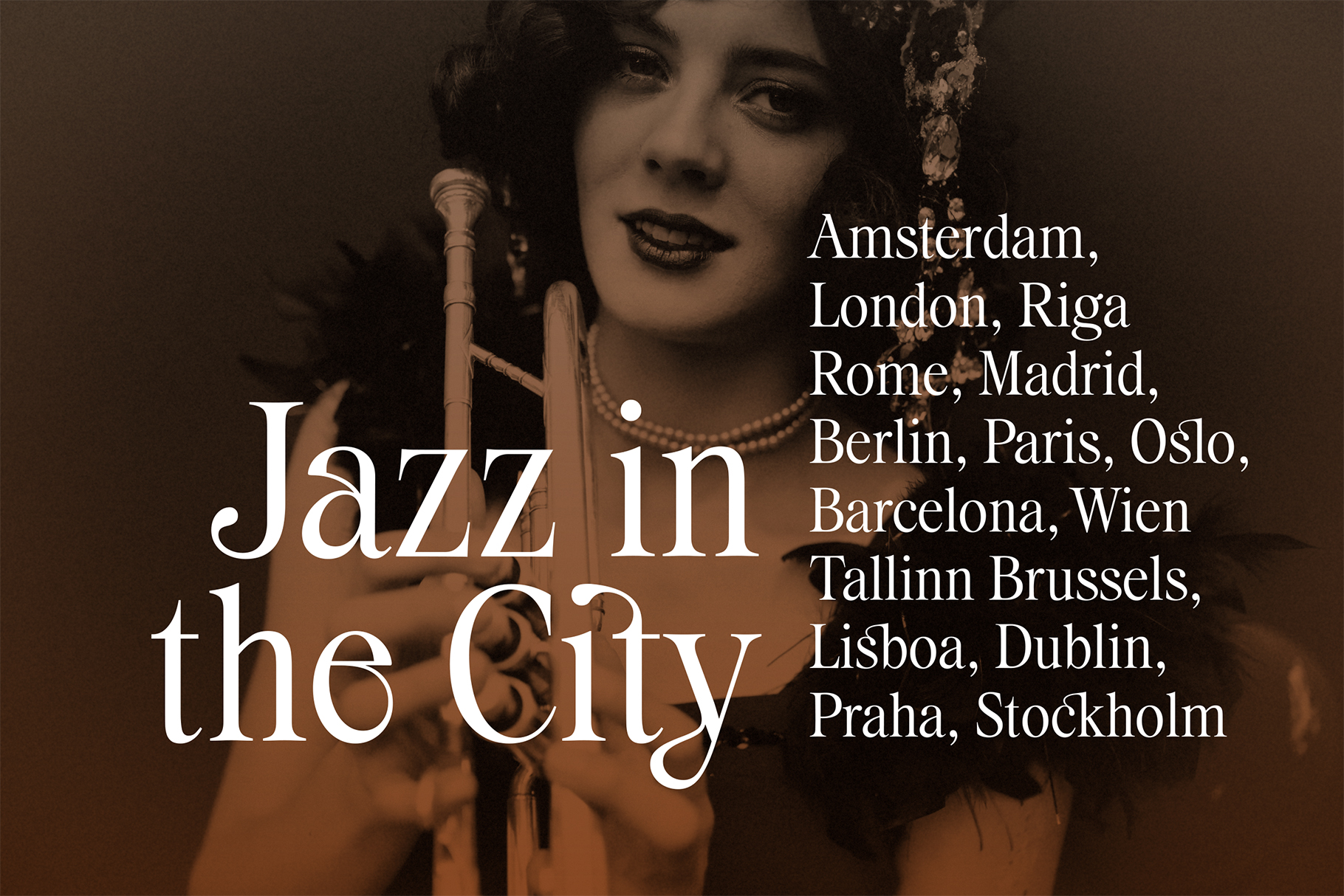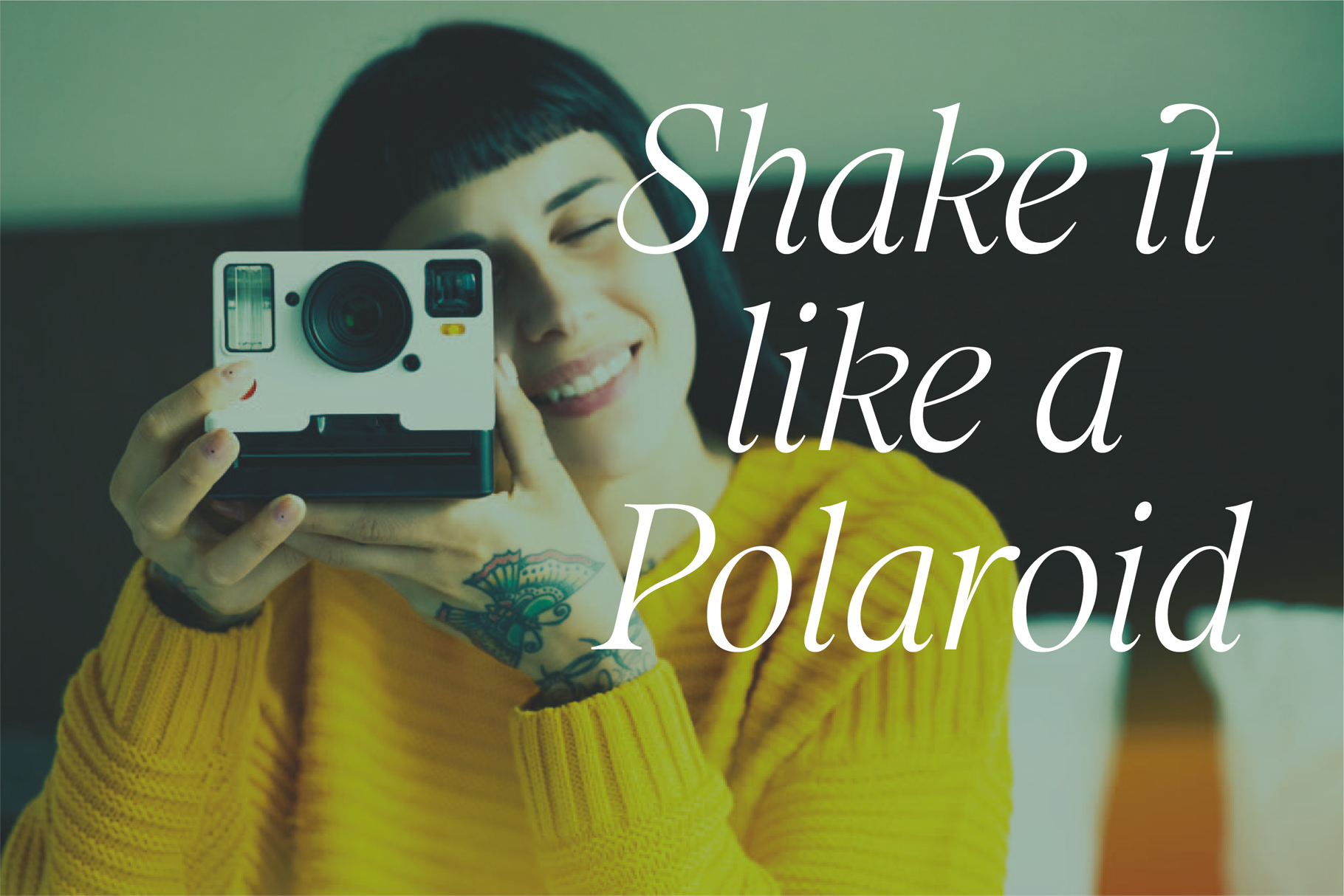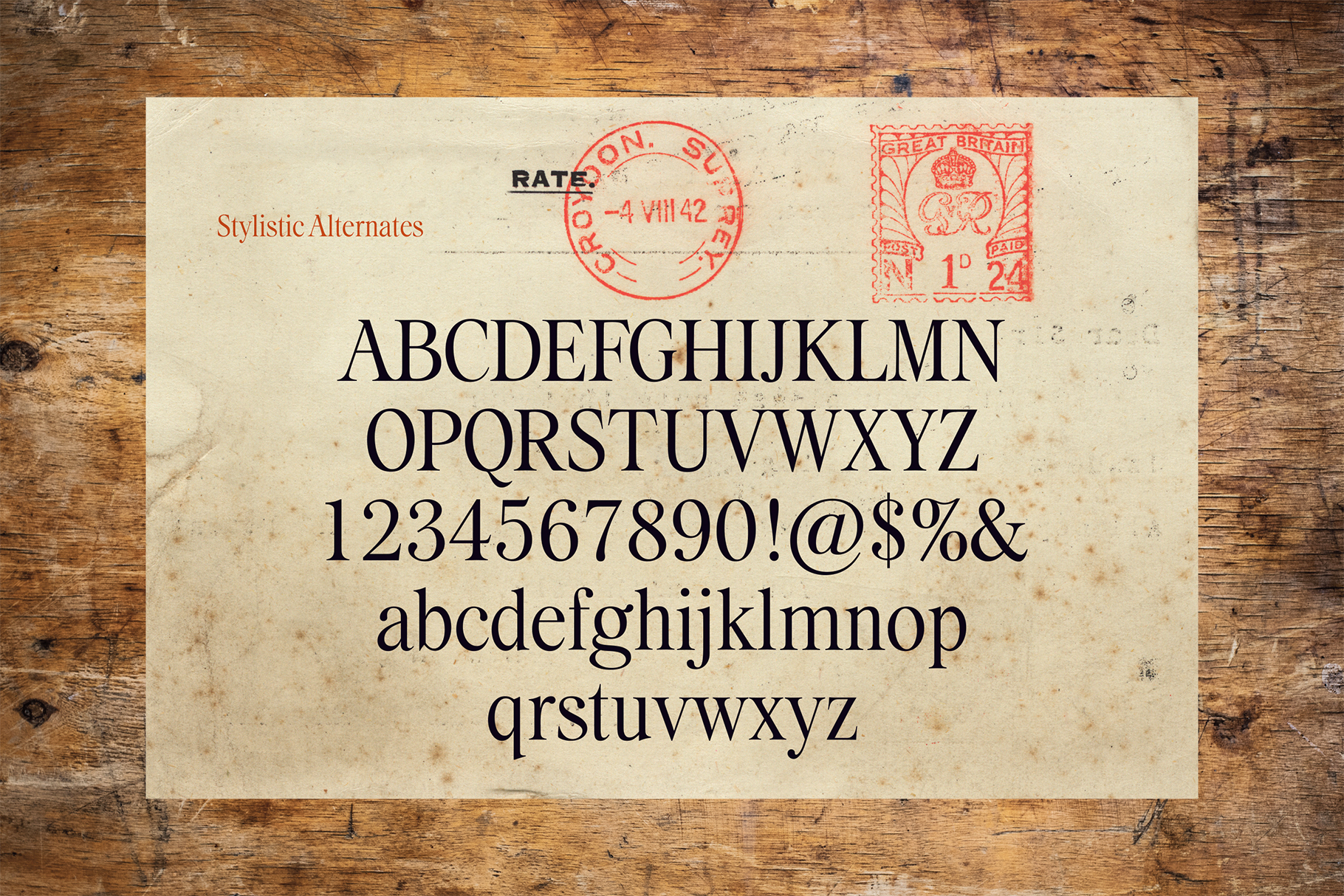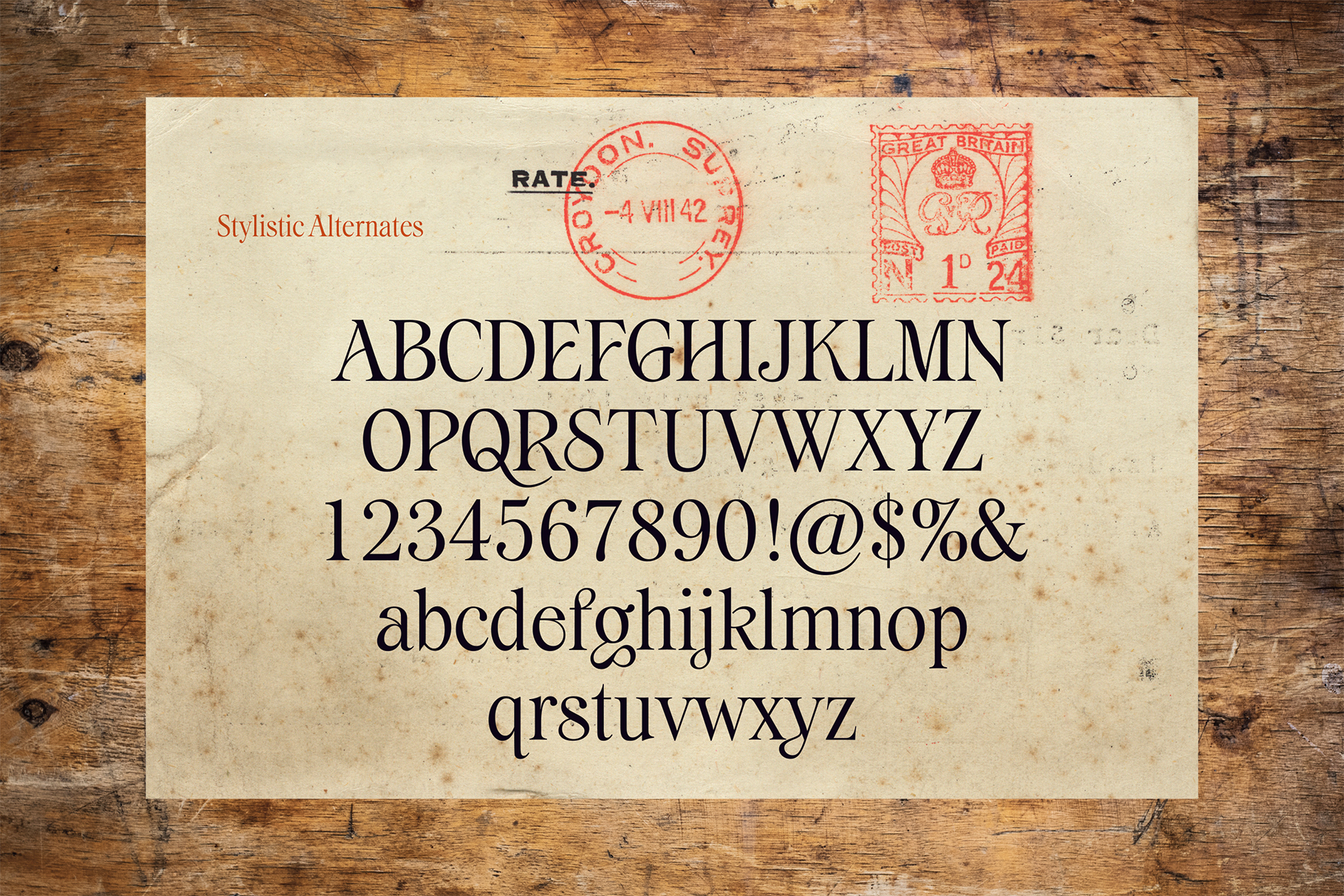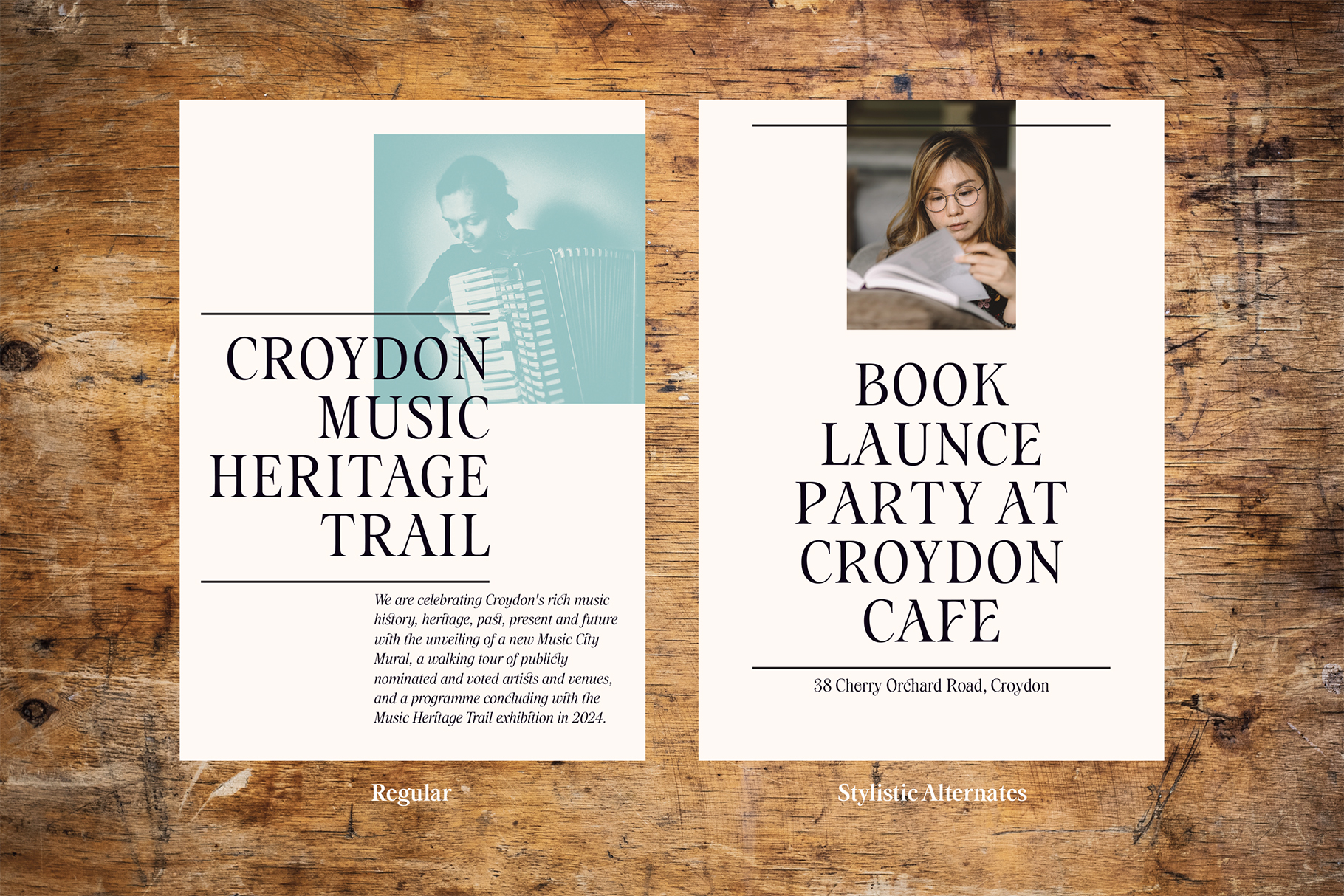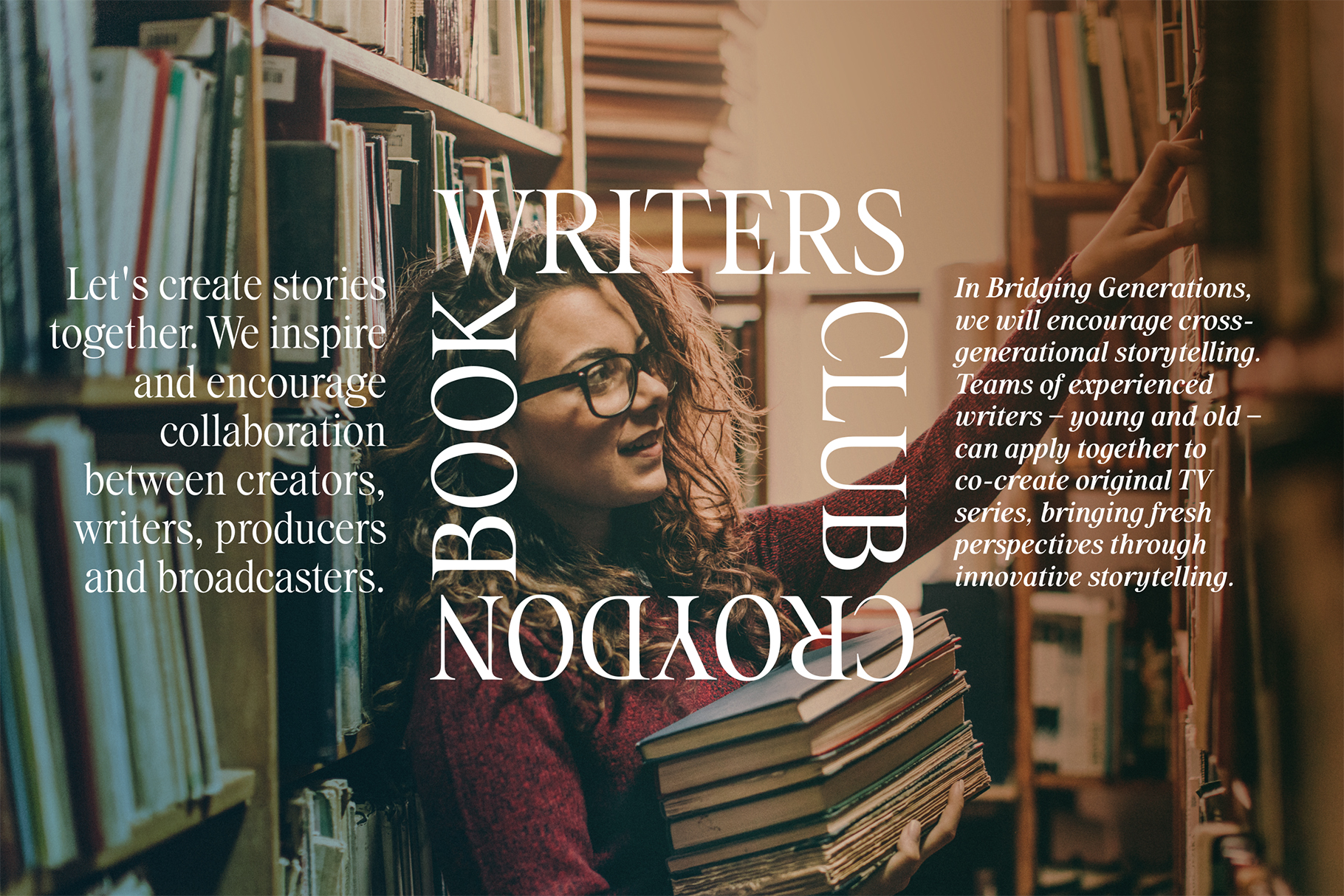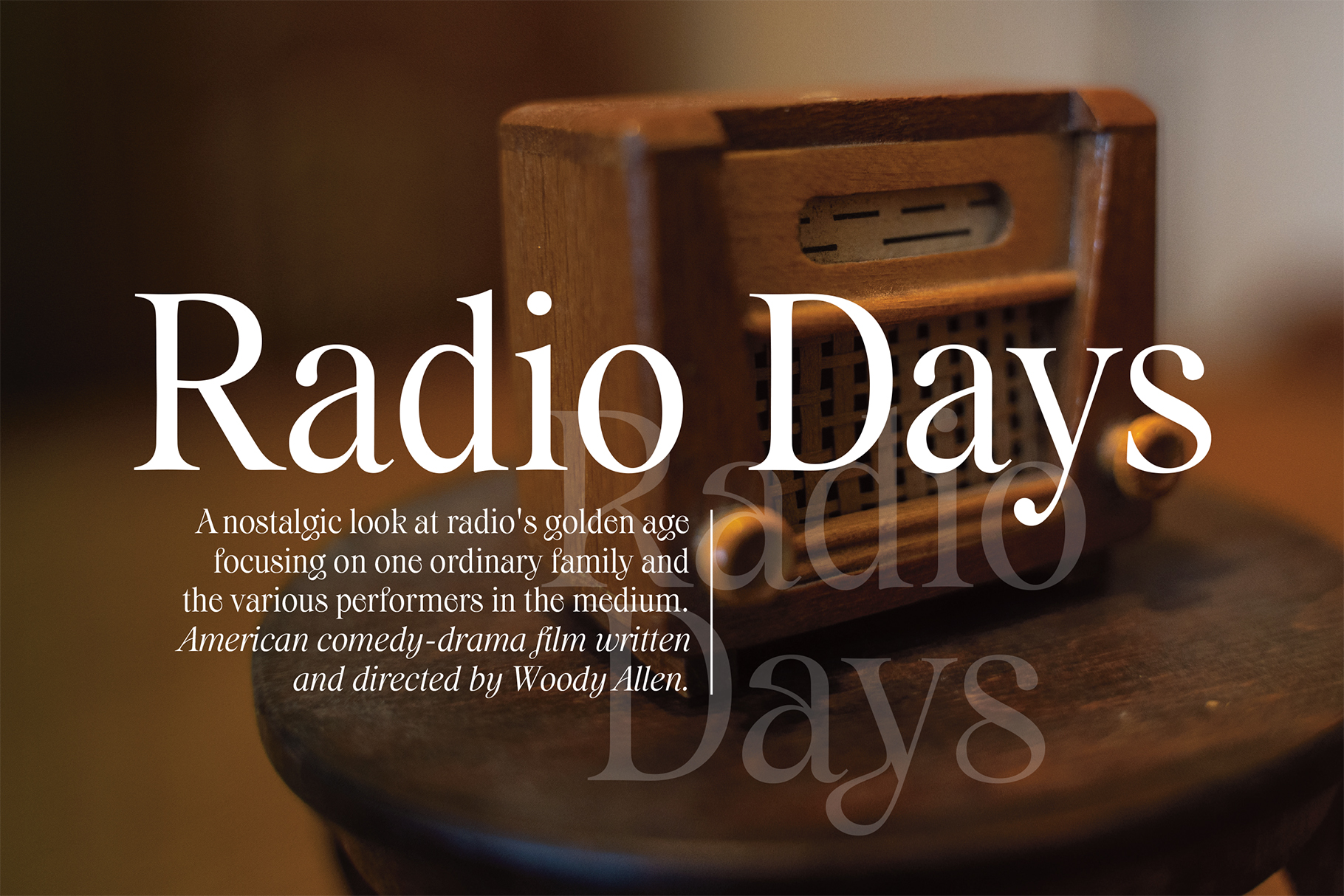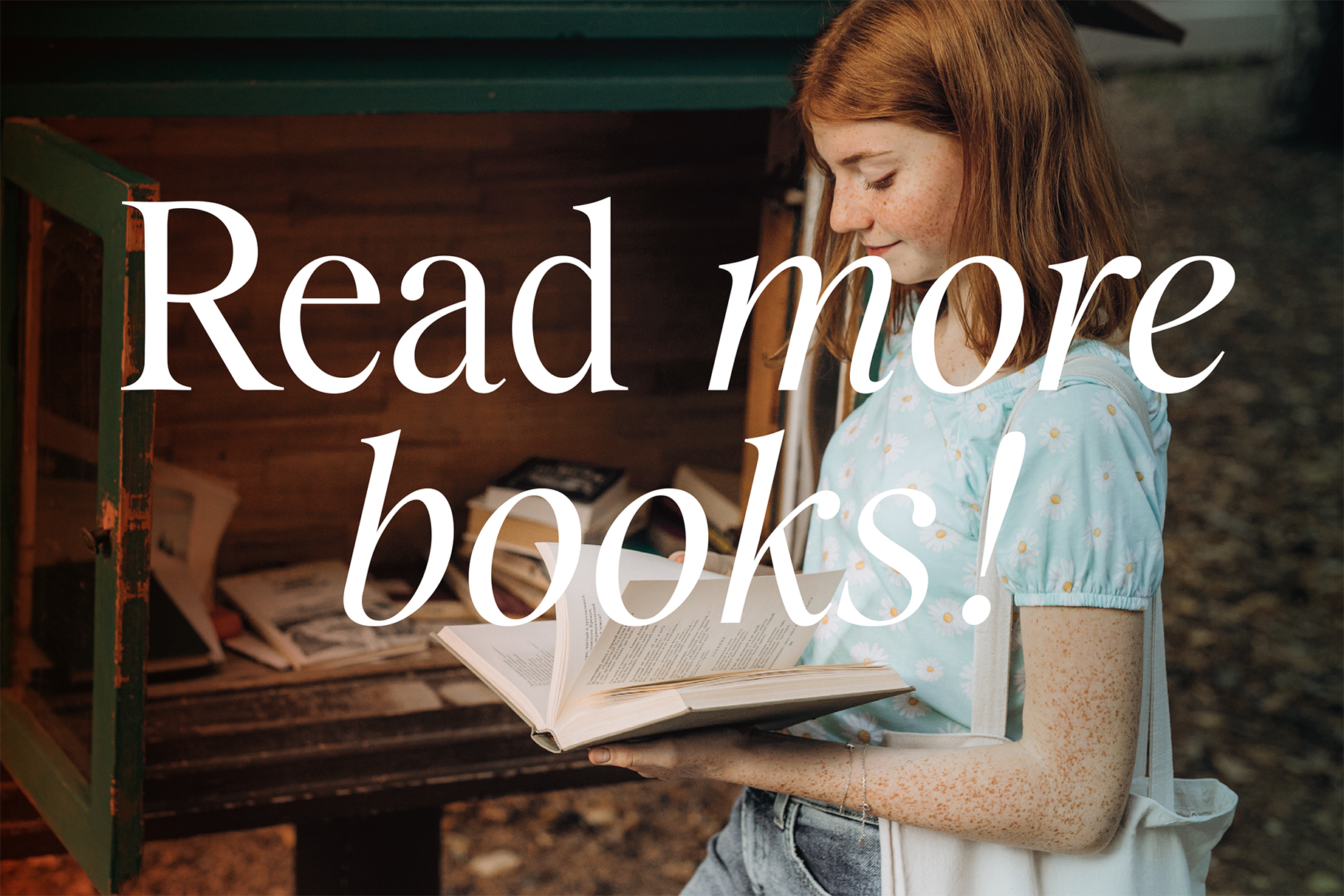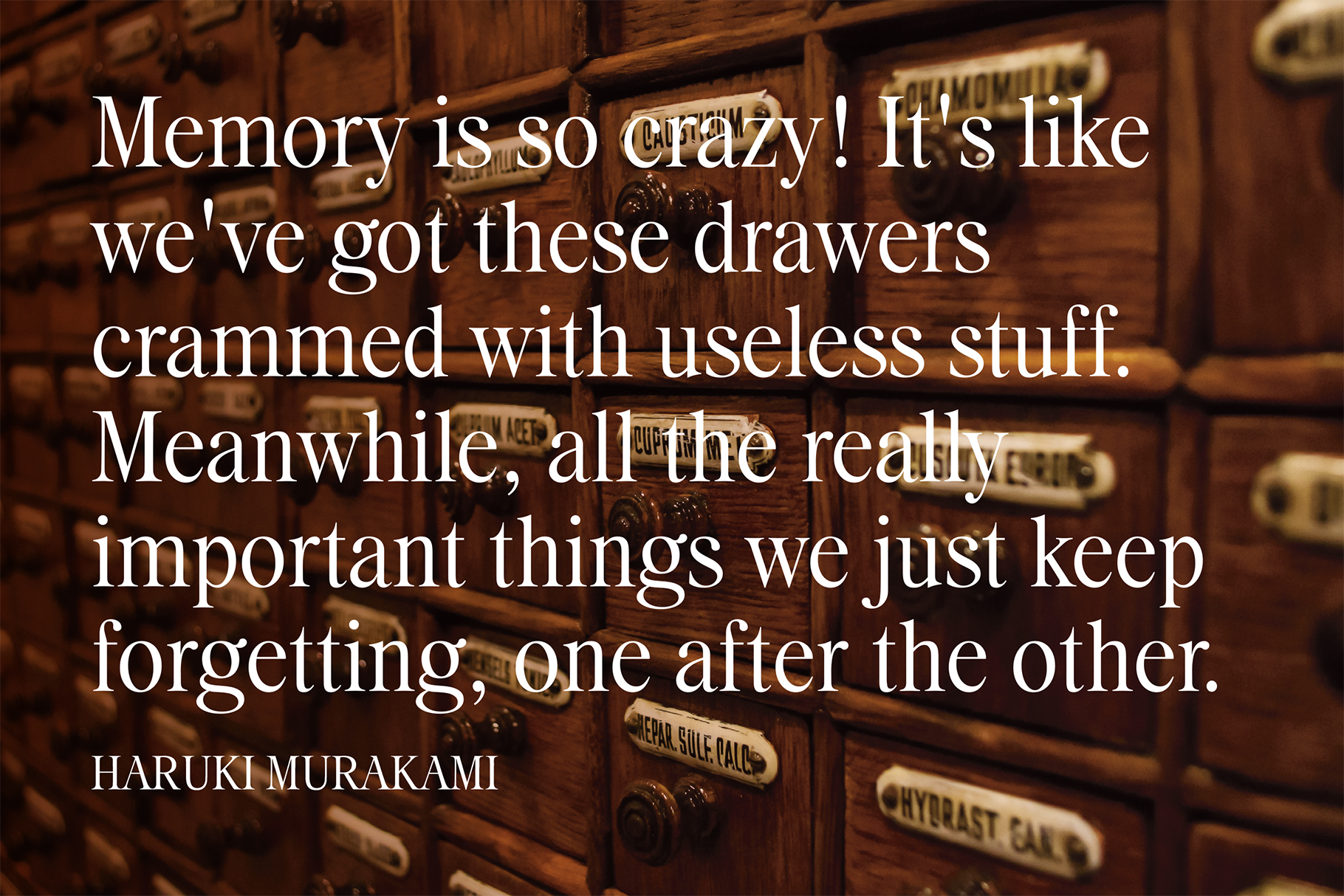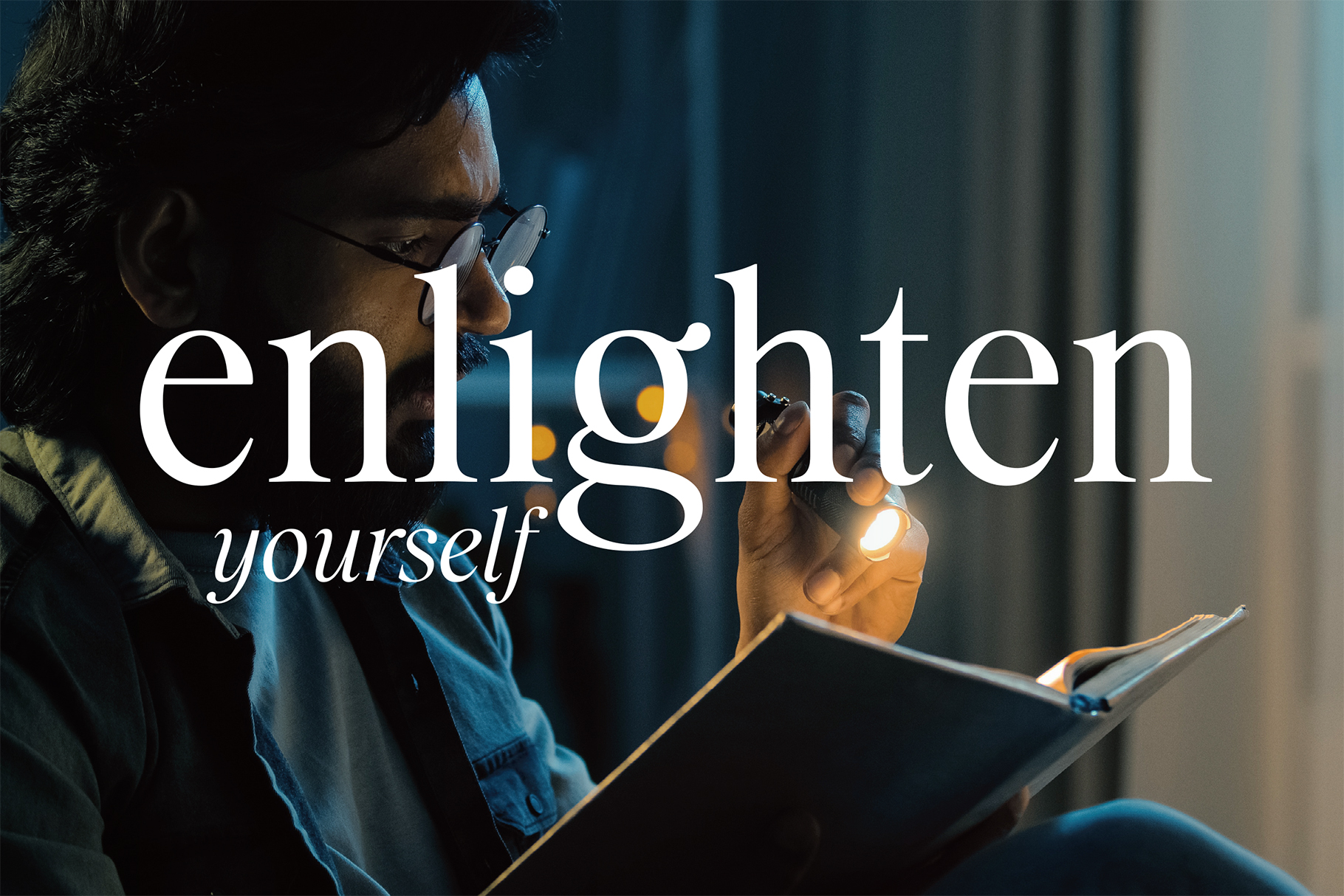
Croydon is a serif typeface with elements of Art Nouveau and Jugendstil, designed for stylish, elegant typography. It stands out with its chic, graceful, and distinctive design. The academic aesthetic is undergoing a restless rebranding, “the poet aesthetic.” This typeface embodies the essence of the French Cadre Noir style: intellectual elegance, a cozy academic atmosphere, and vintage fashion. Thanks to these characteristics, it perfectly complements the Poetcore, Operasthetic, and Cozy Academia styles.
If you’re looking for tangible, conscious forms of connection as an antidote to endless digitalization, this is the typeface for you. Its literary character makes it well-suited for handwritten letters. Stylish, timeless, and elegant: with its compact width, it is ideal for headlines and introductory texts in books, magazines, and fashion projects.
It is available in four weights, both Regular and Italic, making it highly versatile. It is set on an authentic perpendicular line and avoids rarely used weights. Croydon is further enriched by OpenType features such as ligatures and stylistic alternates.